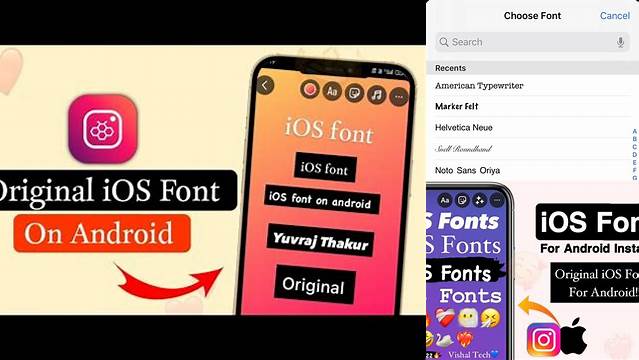
Get IOS Fonts On Android: A Simple Guide
Hey guys! Ever looked at your Android phone and wished you could rock those sleek, stylish iOS fonts? Maybe you're a fan of the clean look of San Francisco or just want to spice things up a bit. Well, you're in luck! It's totally possible to get iOS fonts on your Android device, and I'm here to walk you through it. This guide will cover everything from downloading the fonts to installing them on your phone, making sure you have the perfect look. Let's dive in and transform your Android's typography! We will explore a few different methods, so you can pick the one that works best for you. No matter your tech skill level, this is achievable. So, grab your phone, and let's get started on this awesome font journey. We'll ensure that you understand each step and feel confident about customizing your Android device. Are you ready to make your phone's text look as good as it performs? Then let's do this!
Why Use iOS Fonts on Android?
So, why would you even want to get iOS fonts on your Android device, right? There are a few cool reasons, actually. First off, it's all about personalization. Android phones are awesome because you can customize them in so many ways. Changing the fonts is just another way to make your phone truly yours. You can express your style and make your device stand out from the crowd. Plus, using iOS fonts can give your phone a fresh, new look. Maybe you're a huge Apple fan and love the clean design of iOS. Now, you can bring a bit of that aesthetic to your Android. It's like having the best of both worlds! This is especially handy if you switch between an iPhone and Android. Keeping the same fonts can provide a sense of consistency and familiarity. No more jarring changes when you switch devices. Also, these fonts are really readable and designed with good typography in mind. This is great for readability, making your phone easier on the eyes. This is particularly helpful when reading long articles or viewing text-heavy apps. Ultimately, using iOS fonts on Android is a fun way to improve your user experience and make your phone feel more personal and enjoyable. Plus, it's a super cool way to express your style. Who wouldn't want that?
Rooting: Pros and Cons
Let's look at the advantages and disadvantages of rooting your Android to get iOS fonts. On the pros side, rooting allows for maximum customization. You have complete control over your device and can change any system file. Rooting offers access to a wider range of fonts. You can easily install any font, including iOS fonts, by modifying the system files. Rooting opens up access to advanced features. Rooting allows the use of apps that require root access, which can enhance your device's functionality. It often allows better performance tweaks, too. But here's the kicker: On the cons side, rooting can void your warranty. Rooting your device typically voids the manufacturer's warranty, which can be a problem if anything goes wrong. It involves a high degree of technical skill. It is not for beginners. Rooting can be risky. Incorrect rooting can brick your device, rendering it unusable. Also, it can compromise security. Rooting can make your device more vulnerable to security threats if you are not careful about what you download. The process is time-consuming. It requires time to research, prepare, and execute the rooting process. Choosing to root is a big decision. Rooting is ideal for users with advanced technical skills who want the ultimate customization. Make sure that you understand the risks involved before proceeding. Think twice before starting. It is not something to be taken lightly.
Troubleshooting Common Issues
Sometimes things don't go as planned. Here are some solutions to the most common problems you may encounter when installing iOS fonts on your Android device: Font doesn't apply correctly. If the font doesn't change after you install it, try restarting your device. This often fixes the problem, as it ensures that the new font is correctly loaded into the system. Also, make sure that the font is compatible with your Android version. App not working. If the font app you are using is not working, check if there are any updates available. Outdated apps can cause issues. Reinstall the app. Sometimes a fresh install can solve the problem. If you encounter problems with a custom launcher, try changing the theme settings within the launcher. Many launchers have multiple theme options. There could be conflicts if you install a third-party theme. Ensure you have given the app all the necessary permissions. Some apps need access to your storage or other features to apply fonts correctly. Read the app's permissions carefully. Some fonts may appear differently depending on the app or device. Also, some apps might not support custom fonts. You can troubleshoot by changing the font in another app to see if the problem persists. If the problem continues, consider trying a different method or app. Do not panic! Font customization can sometimes involve a bit of trial and error. Following these troubleshooting tips can help you solve the problem and get those gorgeous iOS fonts up and running on your Android.
Conclusion: Get Stylish iOS Fonts on Android
So there you have it, guys! Getting iOS fonts on your Android is completely doable. Whether you prefer the simplicity of font apps, the customizability of launchers, or the advanced control of rooting, you have options. Remember, the best method for you depends on your comfort level and tech skills. So take your time, explore the options, and find the perfect way to transform your phone's look. Now go out there and make your Android look fantastic! Hopefully, this guide helped you. Do not be afraid to experiment. Have fun, and enjoy the new, stylish look of your phone! And remember, if you have any questions or run into trouble, there are tons of resources available online to help you out. Happy customizing! If you have any further questions, please ask them in the comments section below.